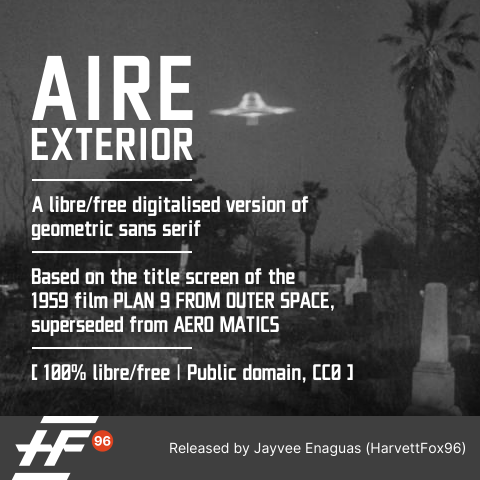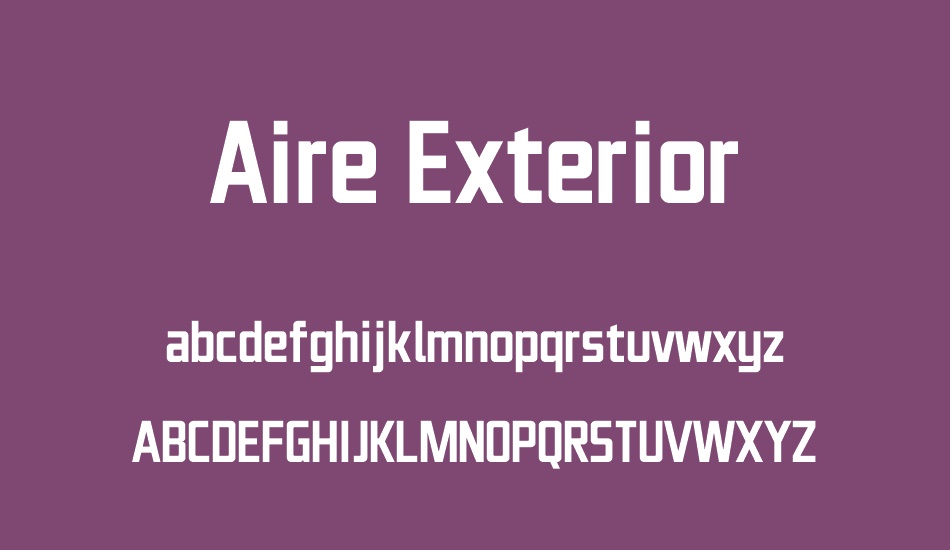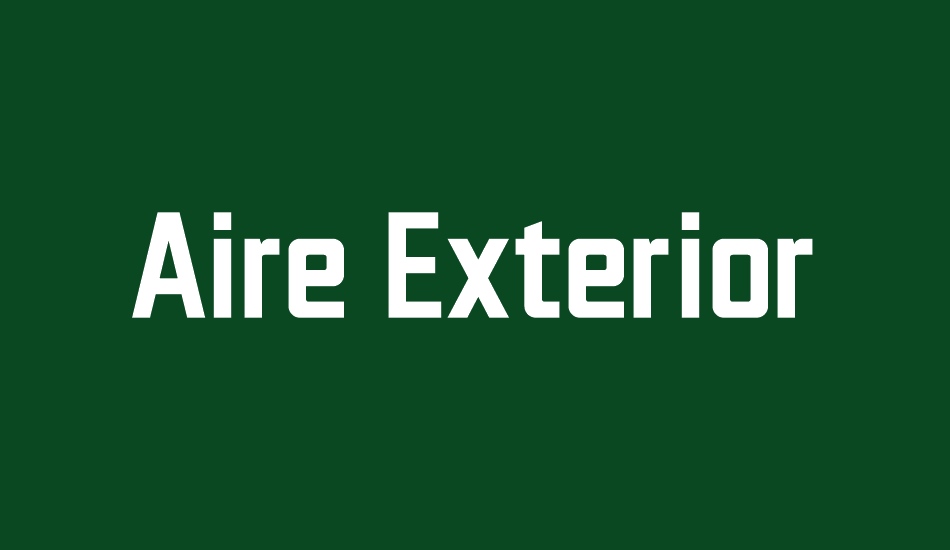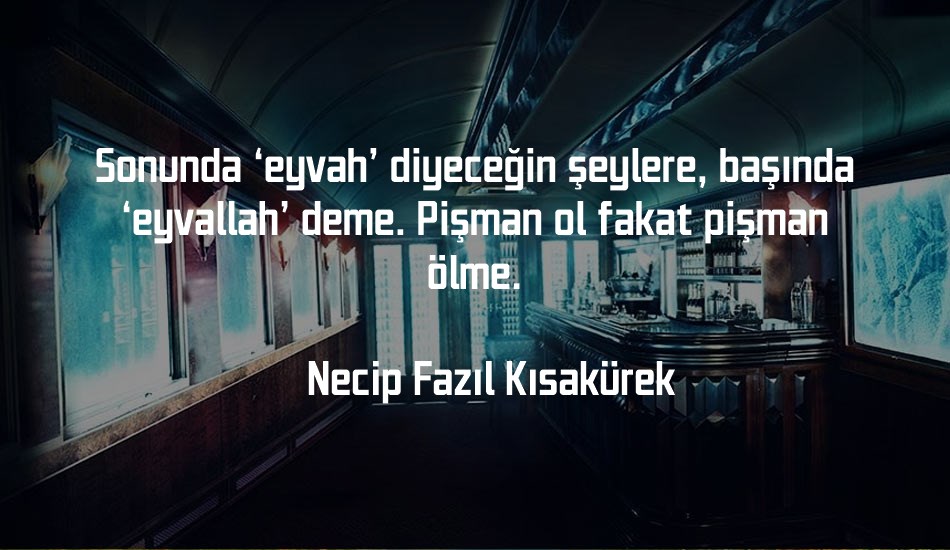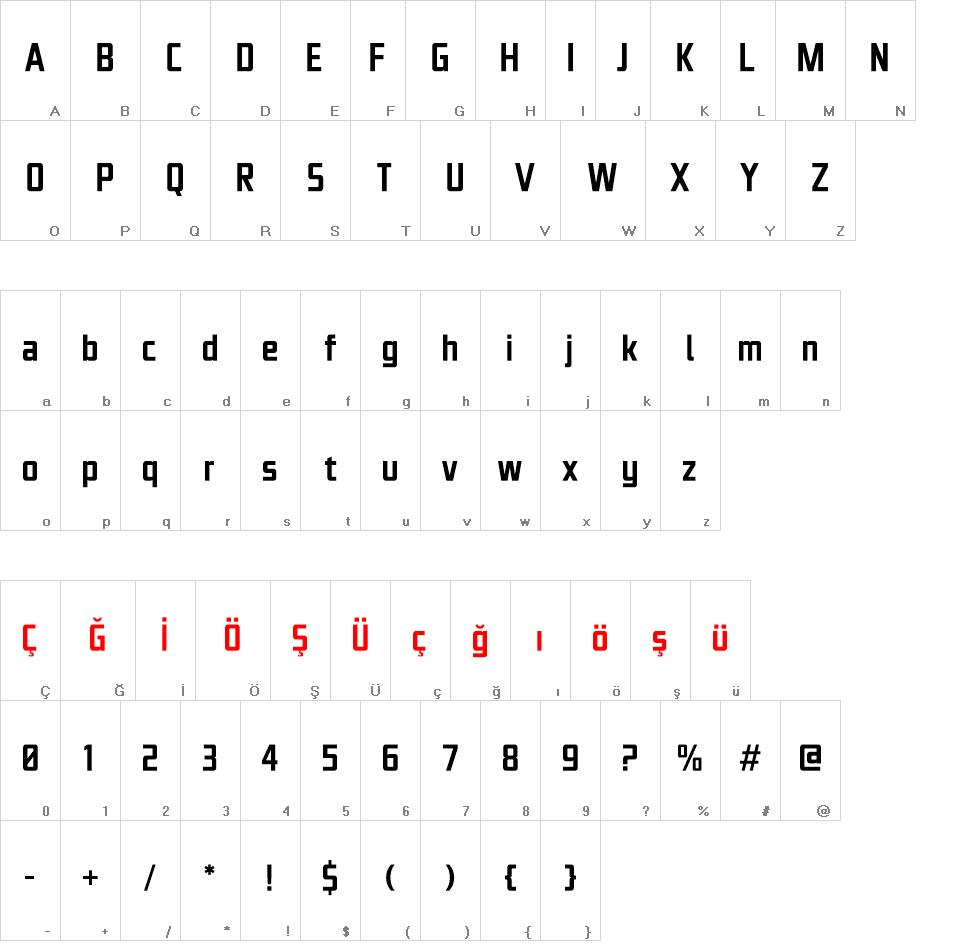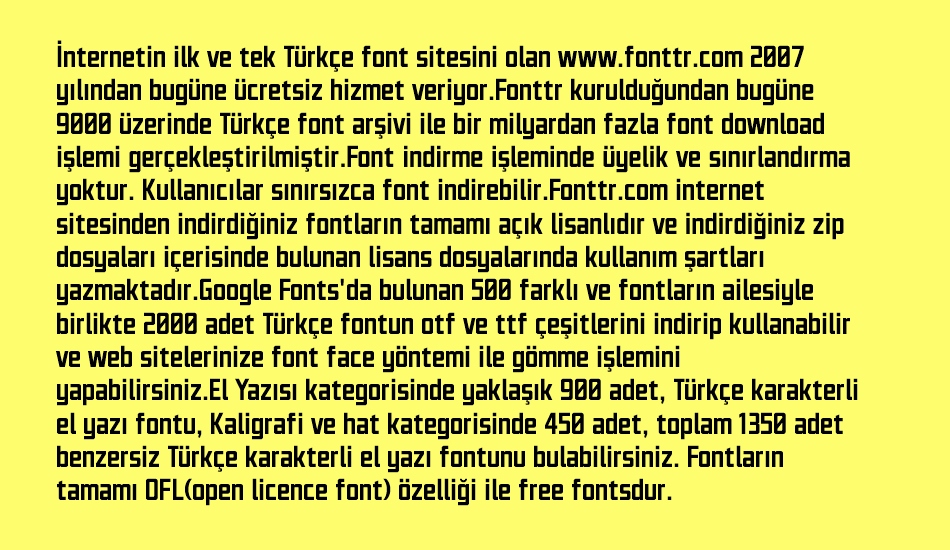
Aire Exterior (English: Outer Air) is a geometric sans serif typeface based on the title screen of the 1959 film Plan 9 from Outer Space, superseded from 2012 erroneous design Aero Matics, created with libre/free font editor software FontForge.
- Added and reworked Cyrillic alphabet set for several supported languages (including Bulgarian, Kyrgyz, Russian, Ukrainian, etc.) (thanks to Denis Ignatov).
- Added four other currency symbols.
- Both recreated and updated tons of kernings from scratch due to the difficult part by spending every hour (Latin characters only).
- Both tweaked and fixed several other characters.
- Replaced kerning type with a single merged class from multiple pairs to avoid bloat source SFD file.
- Redesigned glyph in letter eszett (ß) character.
- Reduced general height metric to 1400.
- Updated tons of kernings.
- Added seven currency symbols (except Azerbaijani manat (?)).
- Added tons of characters of Latin Extended A and B for several supported languages (including Hungarian, Latvian, Polish, Romanian, etc.).
- Tweaked eleven other characters, especially letter I with diacritic characters.
- Fixed wrong referenced glyphs in two other characters of small letter S with diacritic.
- Referenced glyph in j with circumflex.
- Updated tons of kernings.
- Fixed WinDescent in OS/2 metrics to avoid height cutoff issue.
- Added tons of kernings in glyph positioning (GPOS) table.
- Fixed glyph of Spesmilo (?) currency symbol.
- OS/2 and TeX metric tweaks and fixes.
- Several character tweaks and fixes.